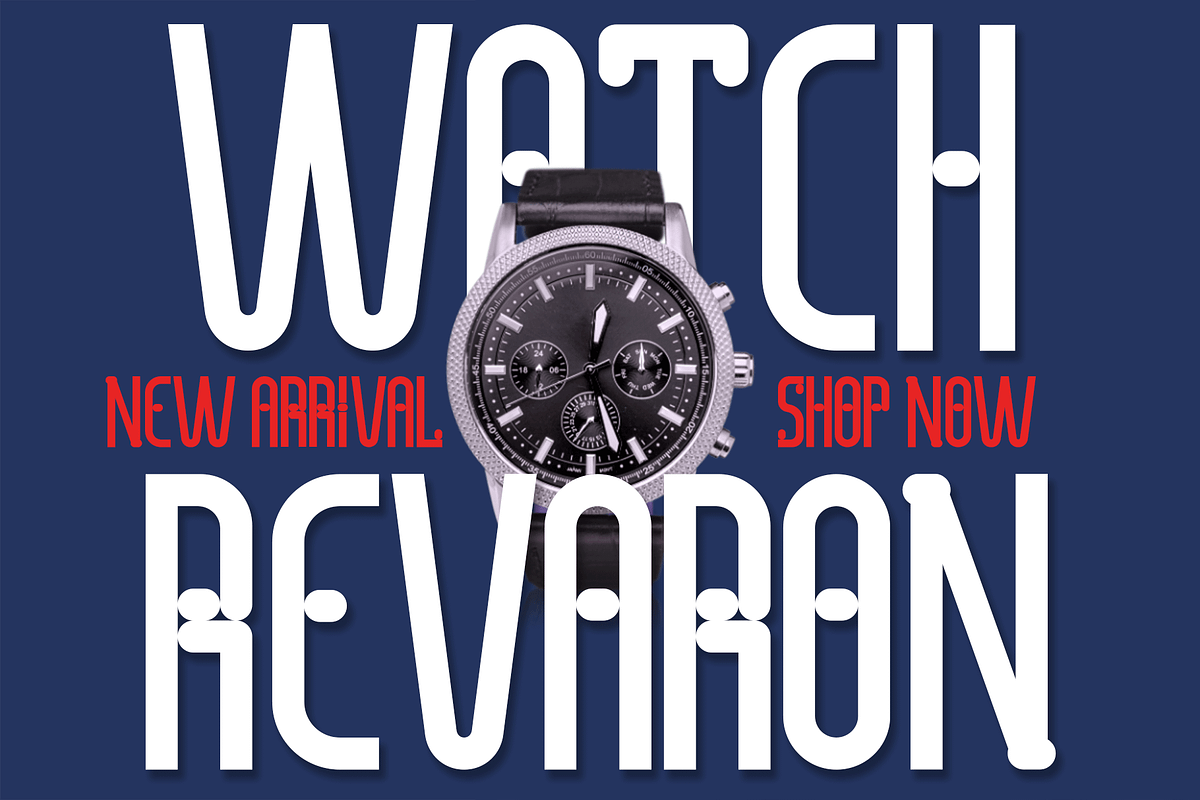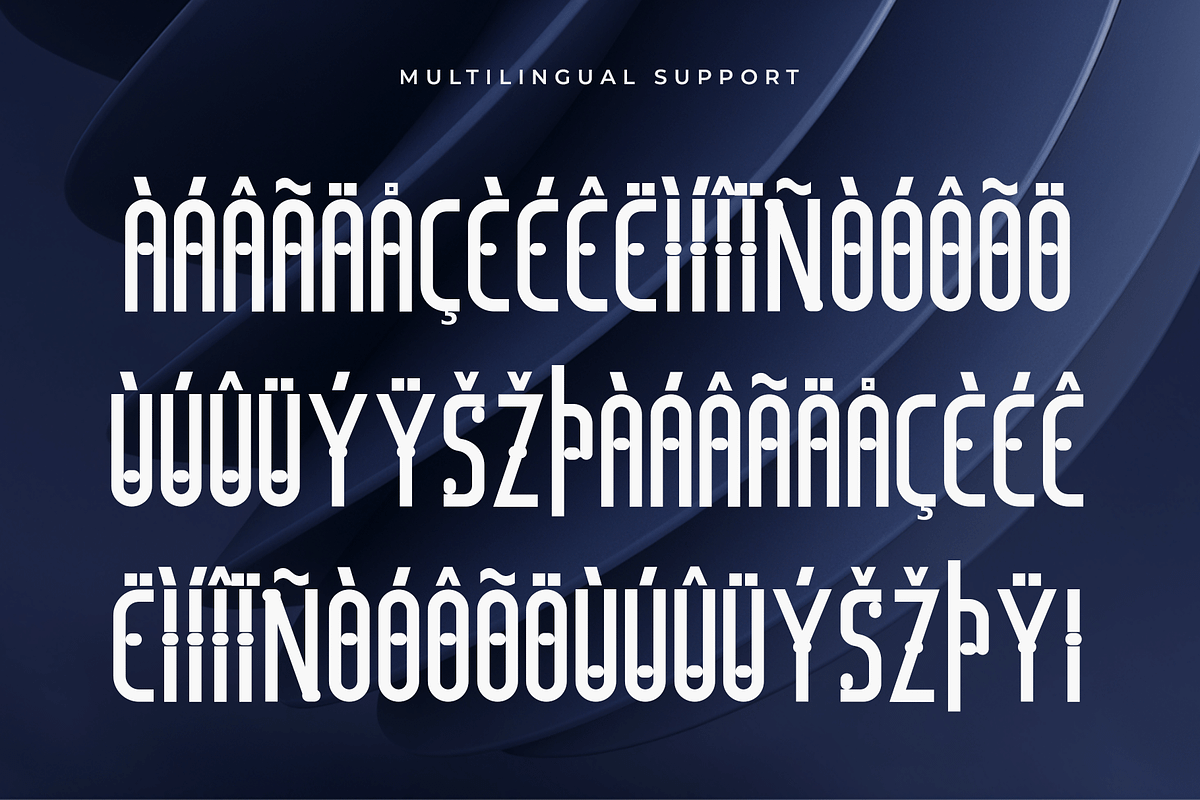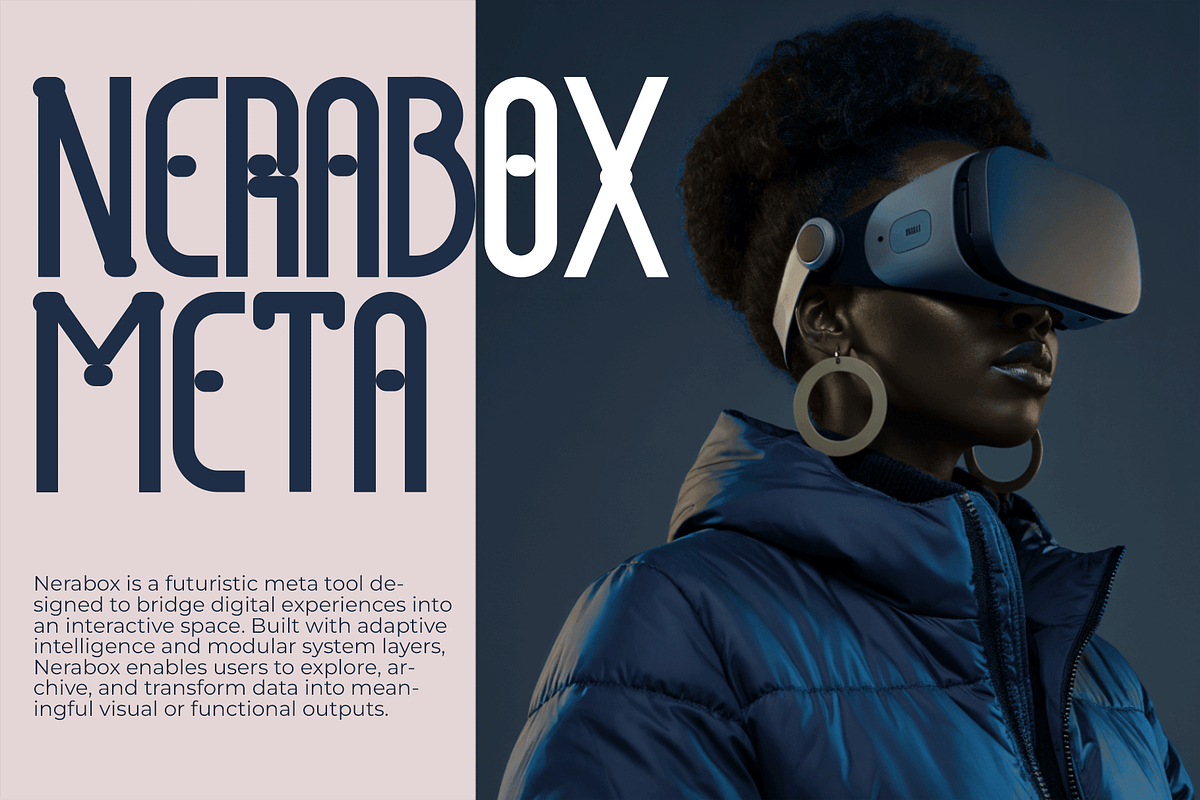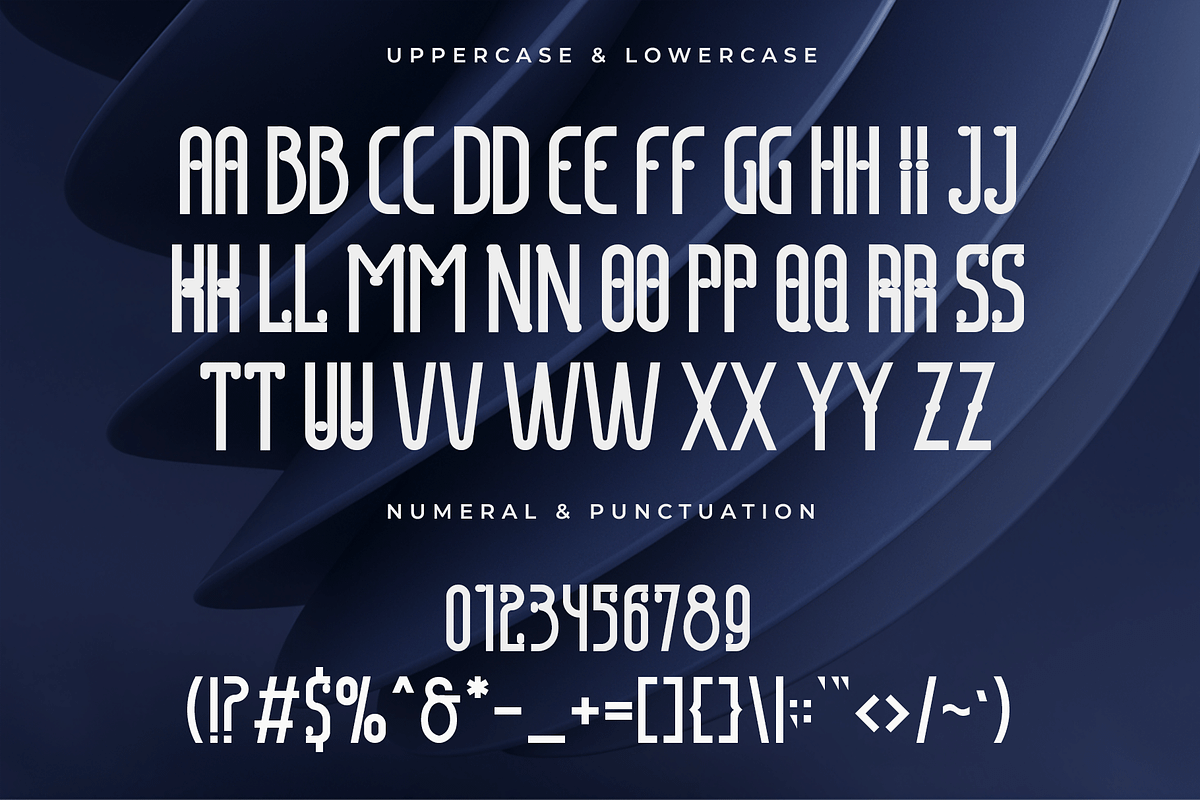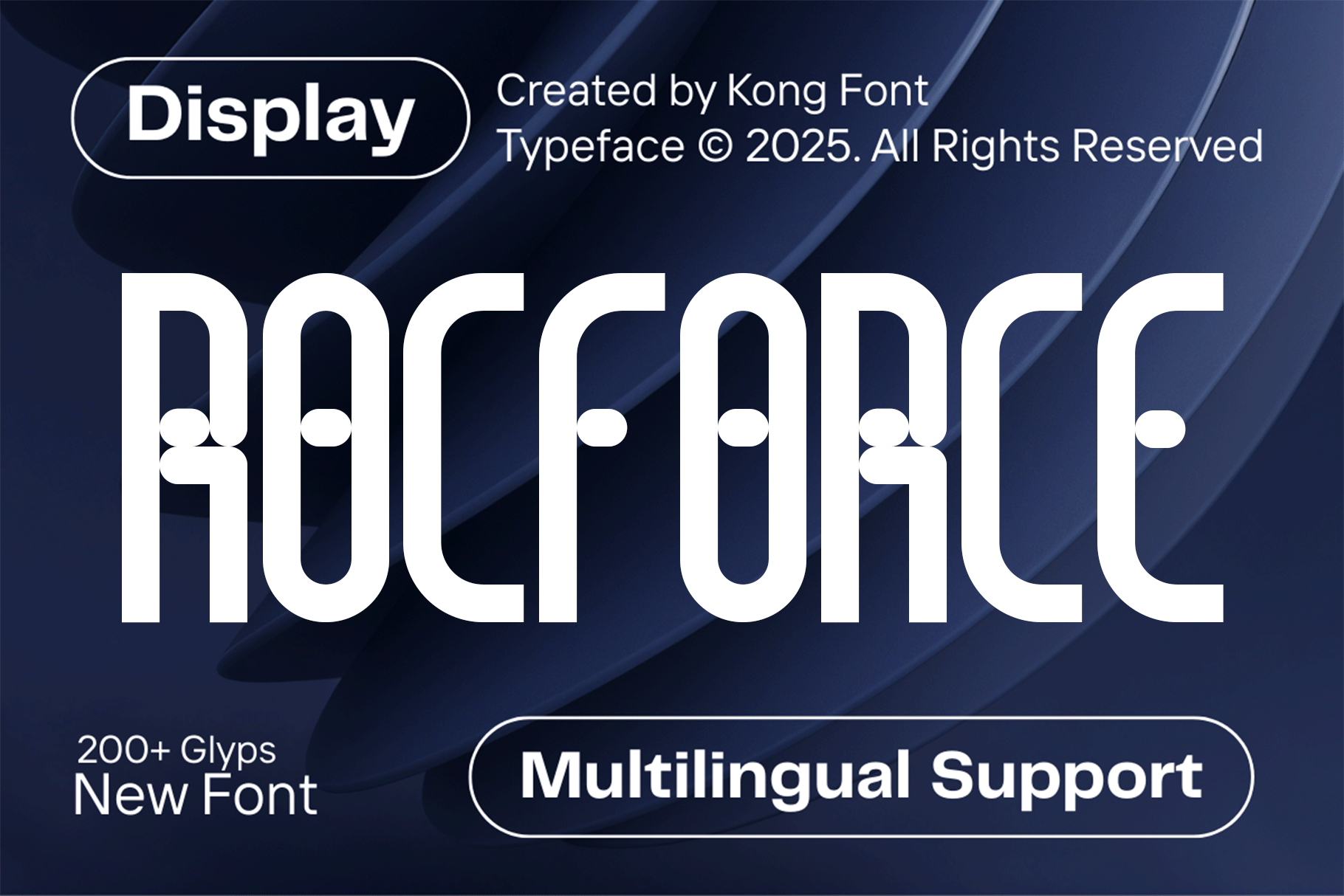
Rocforce - Modern Display Font
Introducing Rocforce, a modern display font built to deliver strength, confidence, and striking visual impact. Featuring bold structures, sharp edges, and powerful proportions, Rocforce is designed for creatives who want their typography to command attention and project a fearless modern attitude.
Perfect for headlines, logos, posters, branding, sports graphics, gaming visuals, packaging, merchandise, and promotional materials, Rocforce brings a strong and energetic presence to any design. Its solid letterforms and contemporary style make it especially effective for bold branding and high impact visual communication.